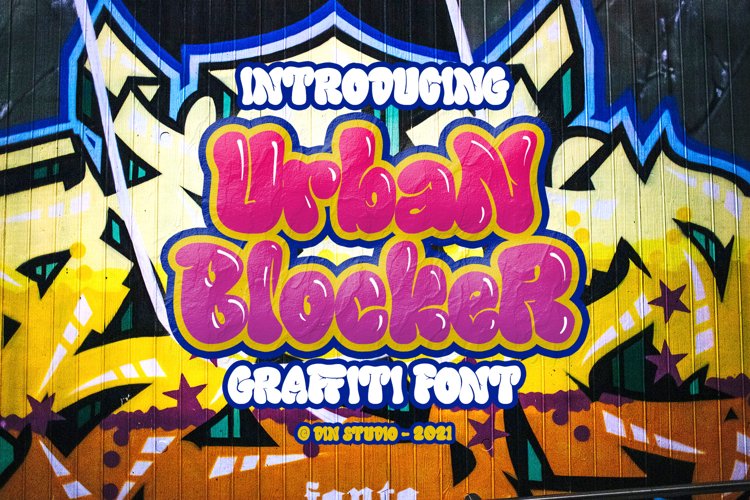
Have you been looking for a graffiti font? Do you dream of creating headings that stand out and inspire creativity, imagination, modernity, and endless fun? Then we’ve got just the font for you!
Introducing Urban Blocker-A Graffiti Font
This bubble graffiti font can be used for a host of different content needs and projects. An excellent choice to add the right amount of street vibe and playfulness. Create gorgeous printed quotes, standout packaging, or beautiful t-shirts! You can even use it to create amazing headings, logos, menus, and social media graphics.